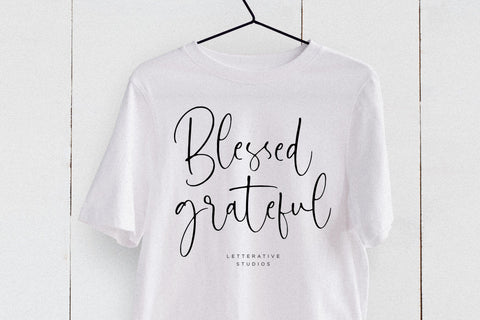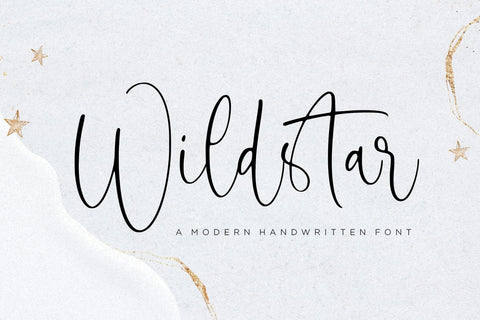
Wildstar Modern Handwritten font
Introducing by Letterative Studio : Wildstar Font
Wildstar is a Modern Handwritten font. Ideal for elegant logos, wedding stationery, websites, branding and any other projects requiring a handwritten and luxurious touch.